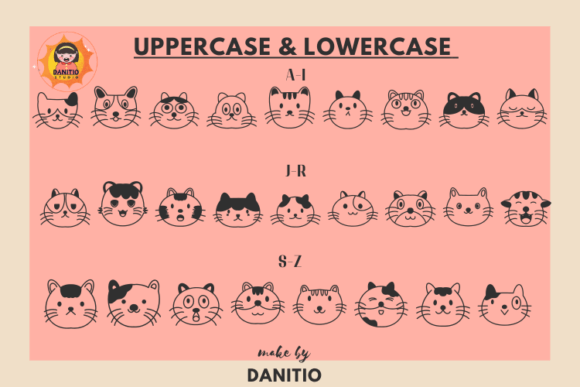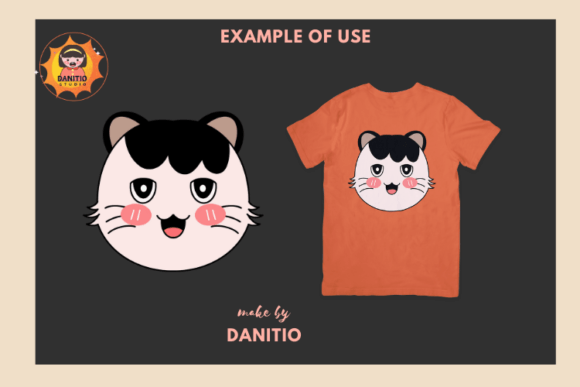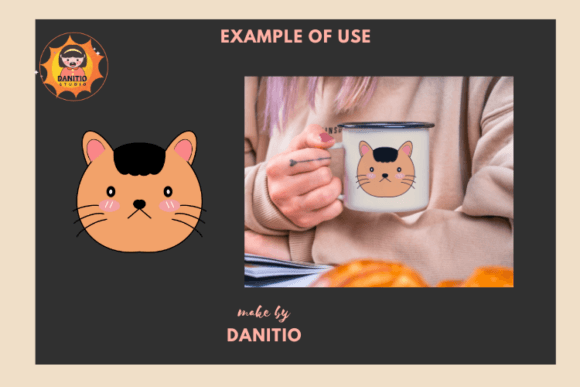
The Purrfect Font: A Comprehensive Guide to Cute Cats Font
I’ll never forget the time I was working on a project for a client’s cat-themed cafe. I had all the design elements ready, but I was struggling to find the perfect font to match the playful and whimsical vibe of the brand. That’s when I stumbled upon Cute Cats Font, a delightful Dingbats font that features adorable cat faces in various moods. It was love at first sight! 💕
- ✨ Unique and playful design that’s sure to grab attention
- ✅ Easy to read and versatile for various design applications
- ✅ Includes a range of cat faces with different emotions and expressions
- ⚠️ Limited character set compared to other fonts, but that’s to be expected with a Dingbats font
- ⚠️ May not be suitable for body text or long-form content due to its decorative nature
The Story Behind Cute Cats Font
Cute Cats Font was created by a designer who wanted to capture the playful and affectionate nature of cats. The font features a range of cat faces with different emotions and expressions, making it perfect for designs that require a touch of whimsy and fun.
| Font Name | Cute Cats Font |
Q: What is Cute Cats Font?
A: Cute Cats Font is a Dingbats font featuring adorable cat faces in various moods and expressions.
Q: Is Cute Cats Font easy to read?
A: Yes, Cute Cats Font is designed to be easy to read and versatile for various design applications.